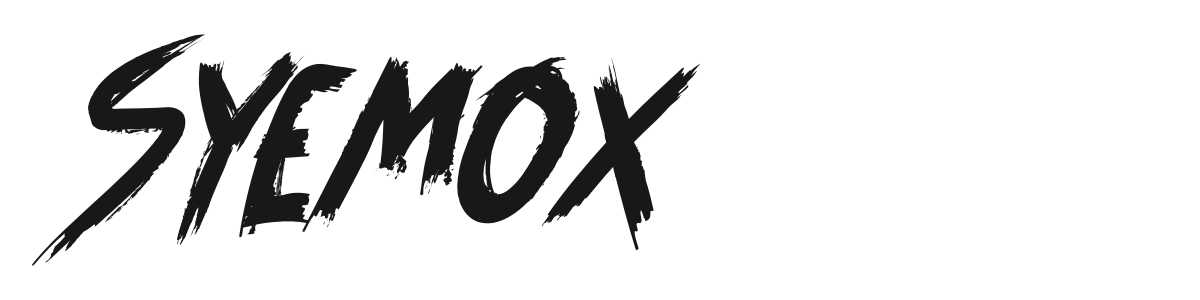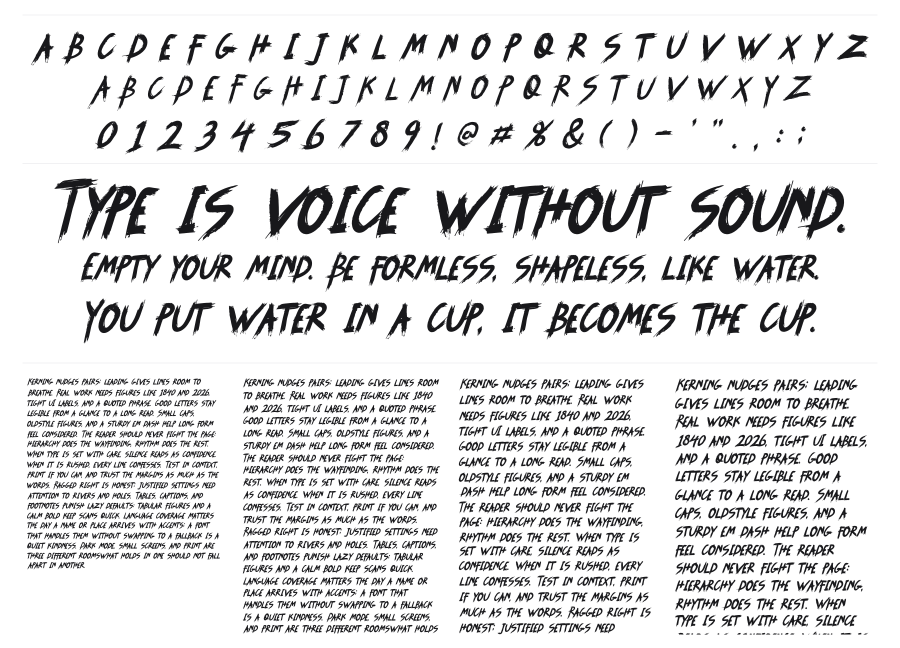
Syemox
Syemox is a bold, distressed brush script with a raw, aggressive character built from ragged, high-energy strokes. The heavy italic lean and splintered brush texture give it the feel of something dashed off quickly with conviction. It suits posters, band logos, streetwear, and anywhere that needs attitude over refinement.